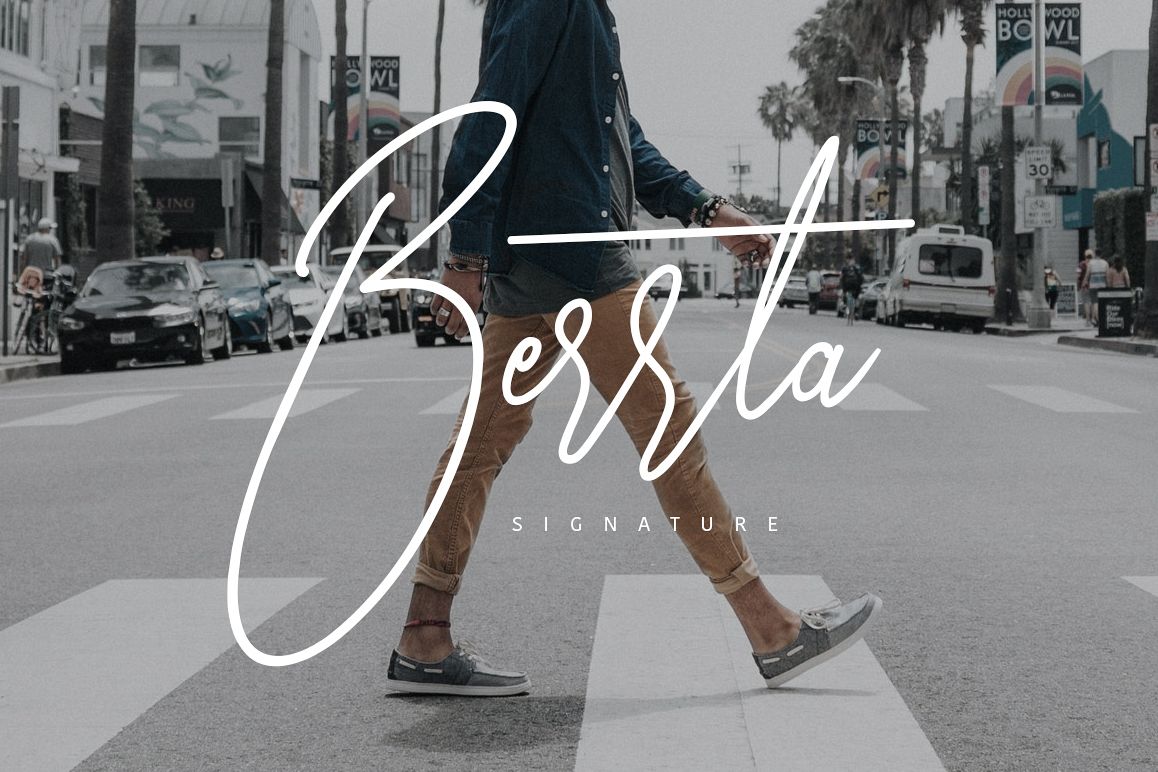
Give your designs an authentic handcrafted feel. "Berrta Signature Font" is perfectly suited to signature, stationery, logo, typography quotes, magazine or book cover, website header, clothing, branding, packaging design and more. Included Stylistic Alternates & Ligatures.